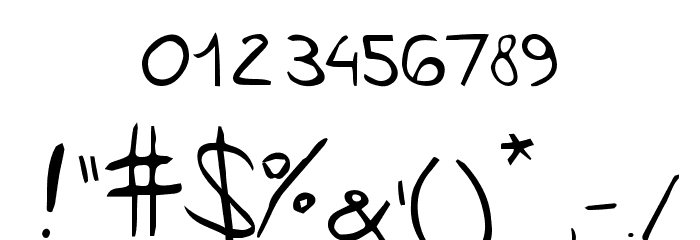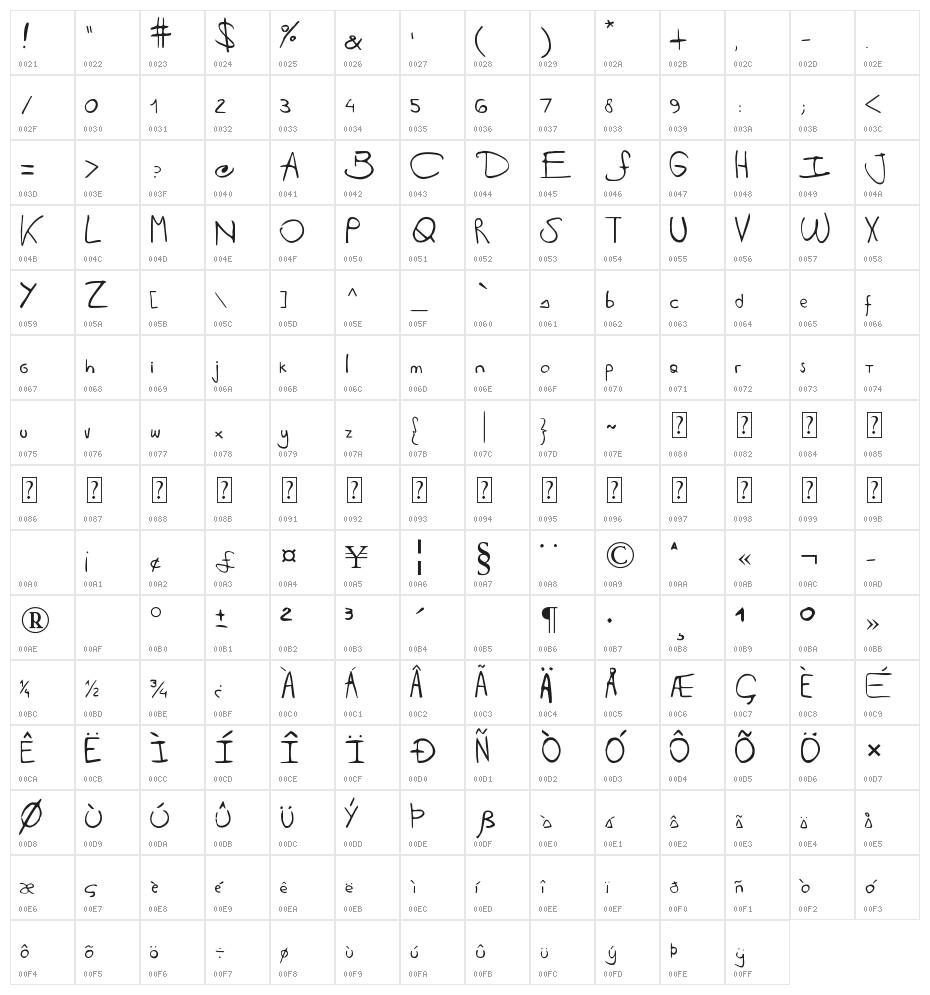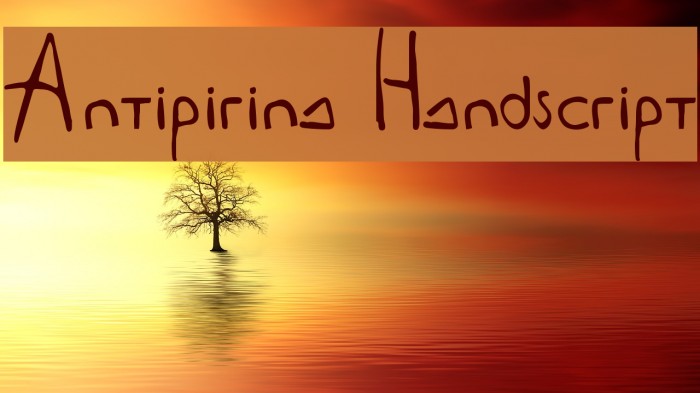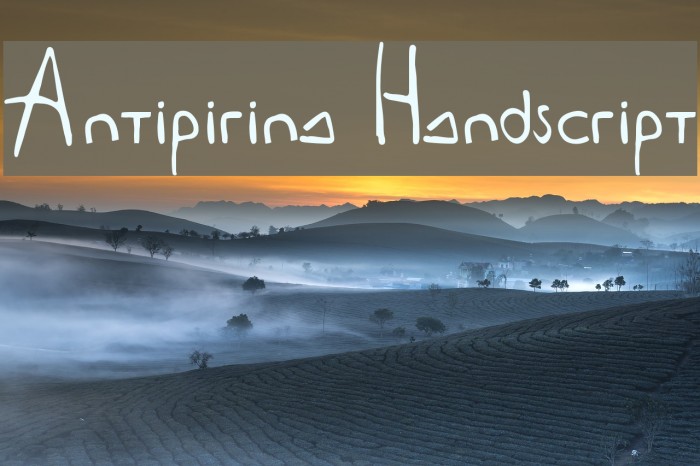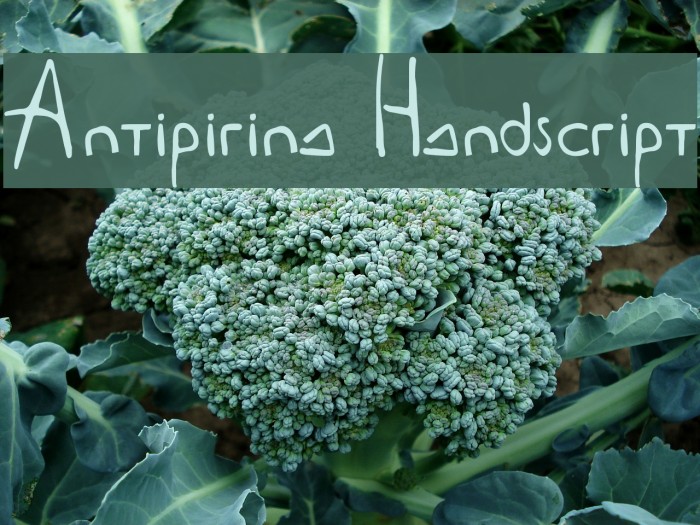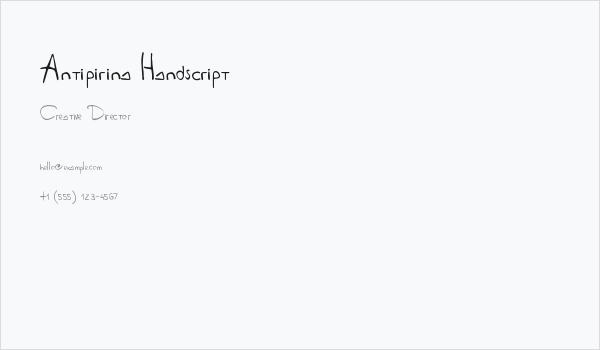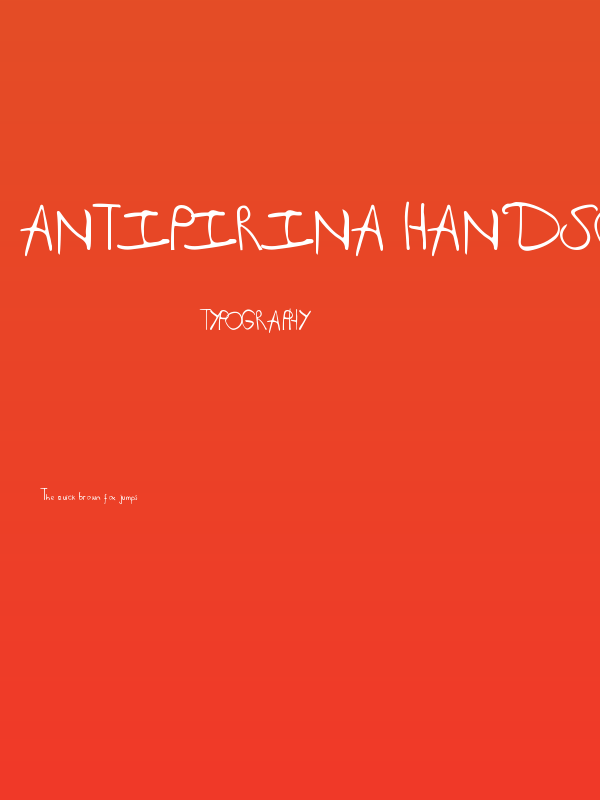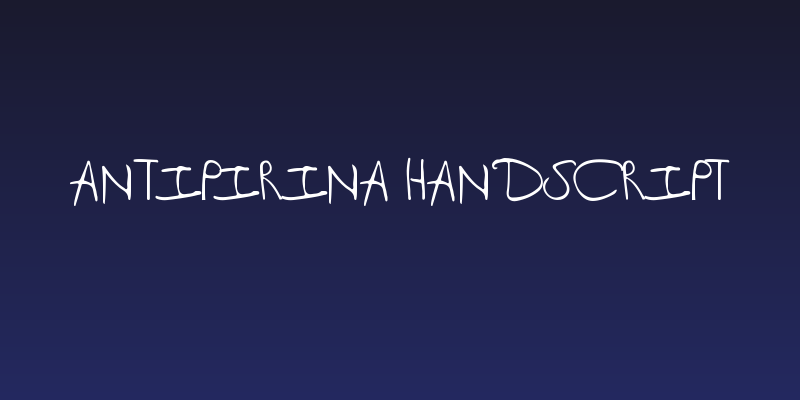
Antipirina Handscript Font
Antipirina Handscript Description
This font features a playful and whimsical handwritten style, characterized by its irregular strokes and casual appearance. The letters have a unique, organic flow, with varying heights and widths that give it a lively and dynamic feel. The uppercase letters are bold and prominent, while the lowercase letters maintain a consistent, yet slightly uneven baseline, adding to its charm. The numerals and special characters follow the same playful aesthetic, making it suitable for creative and informal designs. Its overall appearance is both approachable and expressive, perfect for projects that require a personal touch.
| Overall Style | Playful, Casual |
| Proposed Projects | Ideal for greeting cards, children's books, playful branding, and casual invitations. |